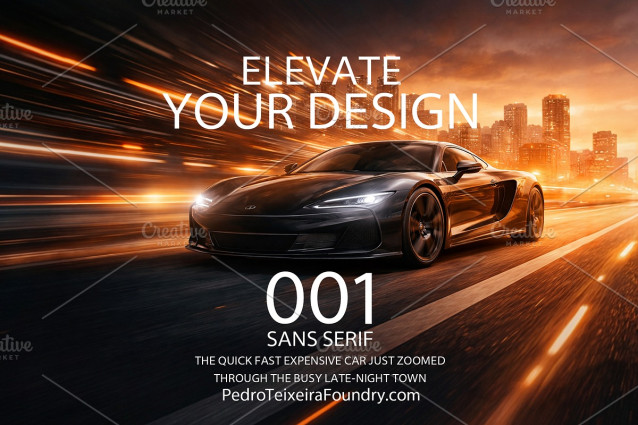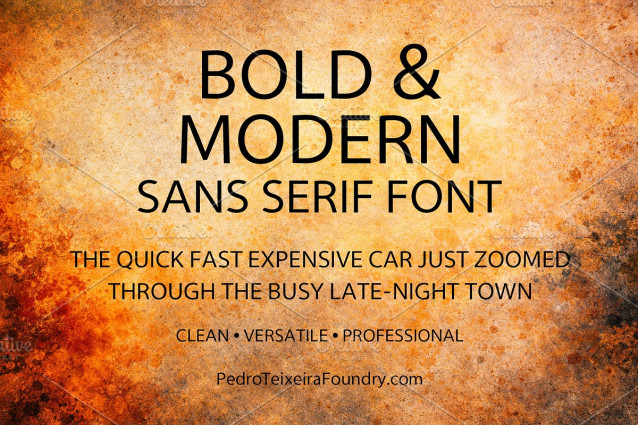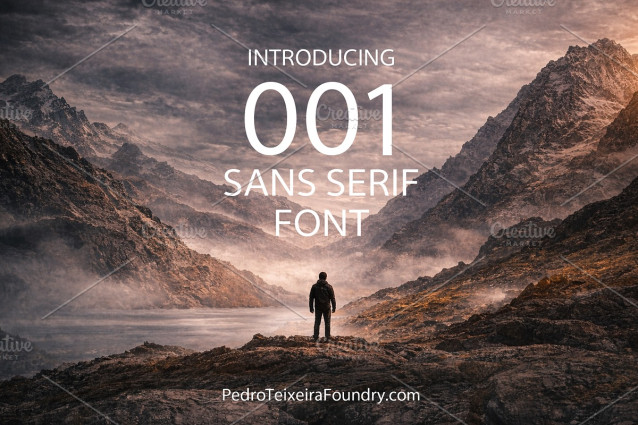
001 Sans Serif Font
001 Sans Serif Font is a modern geometric sans serif typeface created to deliver clarity, authority, and elegance in contemporary design systems. With carefully engineered letterforms, balanced proportions, and refined spacing, 001 offers both visual impact and functional versatility.
This typeface is ideal for branding, editorial layouts, posters, advertising campaigns, digital products, UI/UX design, social media graphics, and corporate communication.
Its structure combines minimalism with strength, allowing it to perform equally well in large-scale headlines and body text applications.